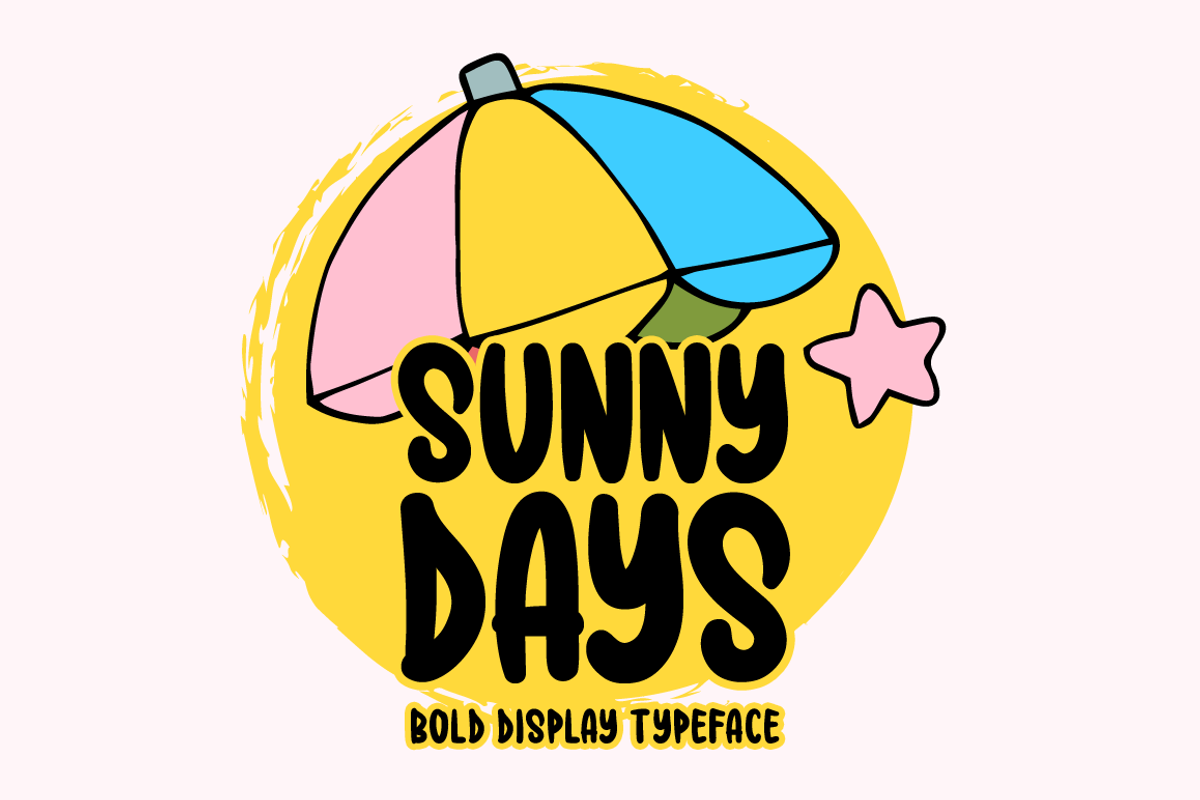
Sunny Days Typeface Free Download is a cheerful and playful font that brings a sense of joy and light-heartedness to any design. With its hand-drawn charm and fun, casual style, this typeface is perfect for kids’ projects, summer-themed designs, greeting cards, posters, product packaging, and creative branding.
Its bubbly, rounded letterforms evoke warmth and positivity, making your messages feel friendly and approachable. Whether you're designing for a children’s brand, an event flyer, or seasonal content, Sunny Days delivers a fresh, happy vibe that instantly lifts your visuals.